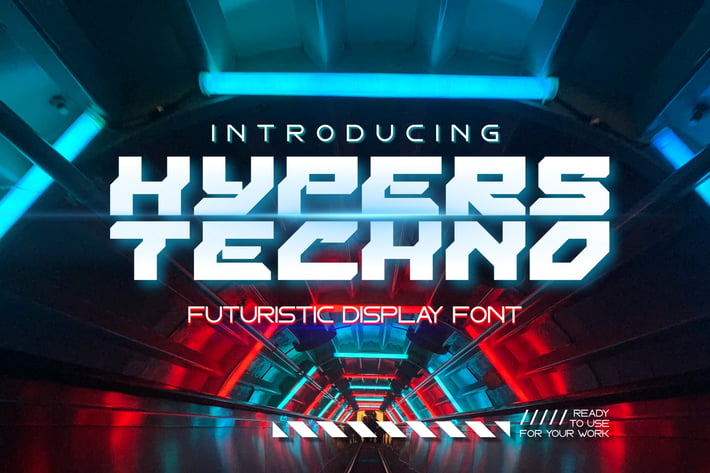
Hypers Techno - Futuristic Font
Hypers Techno font is inspired by the rigid and futuristic forms of wooden furniture,
I developed it so that it can be used for the design of posters, wall advertisements, games competitions, racing, martial art, and other universal events.
with a combination of bright or dark colors can make your design more attractive.